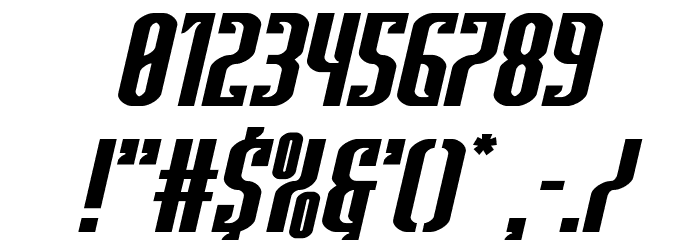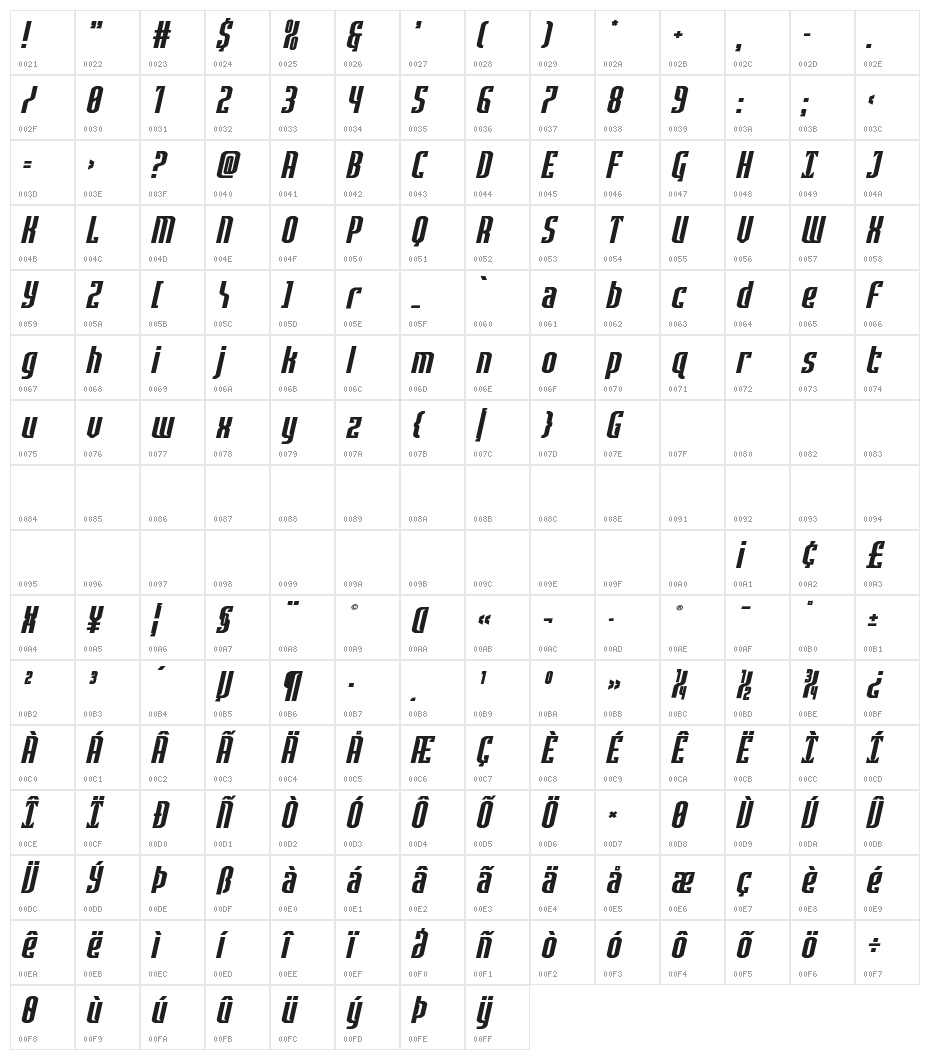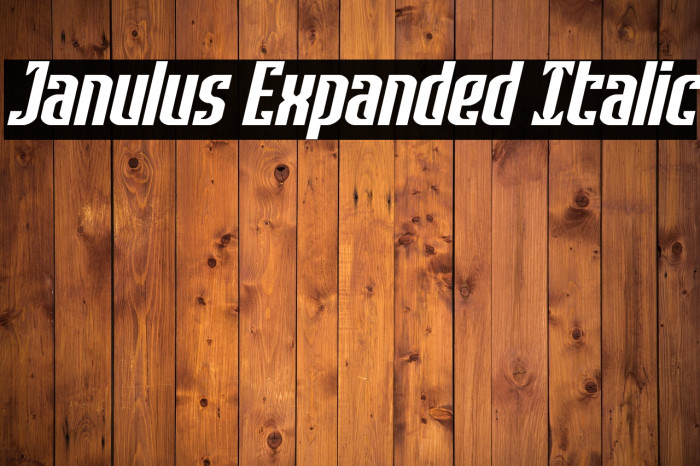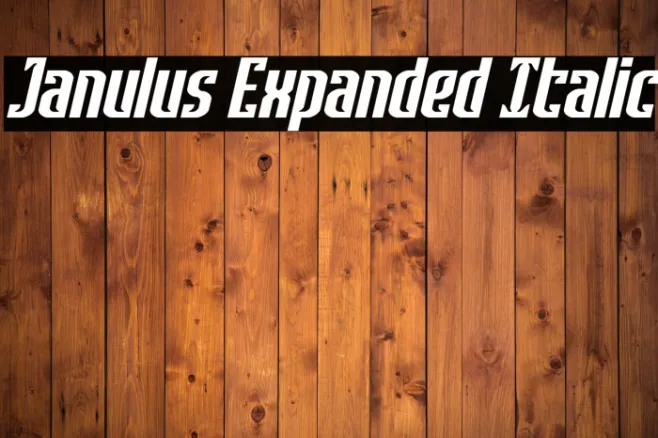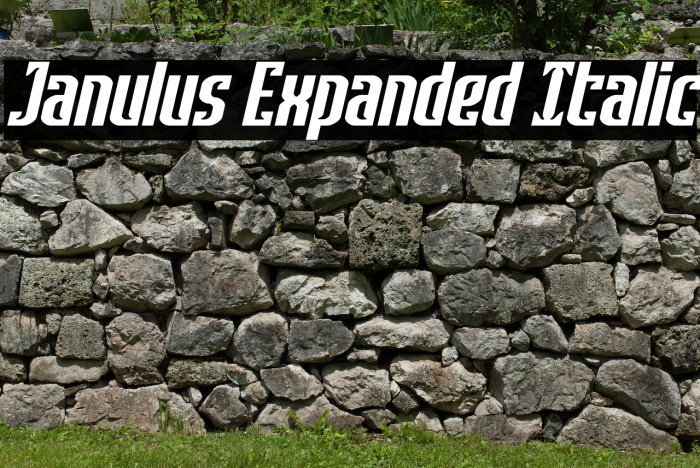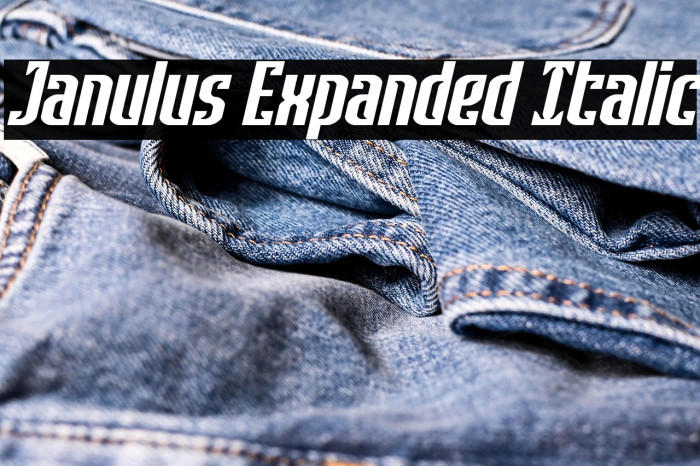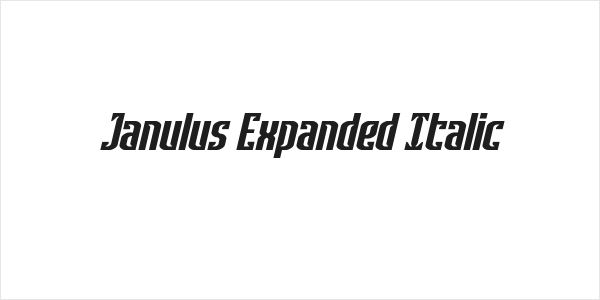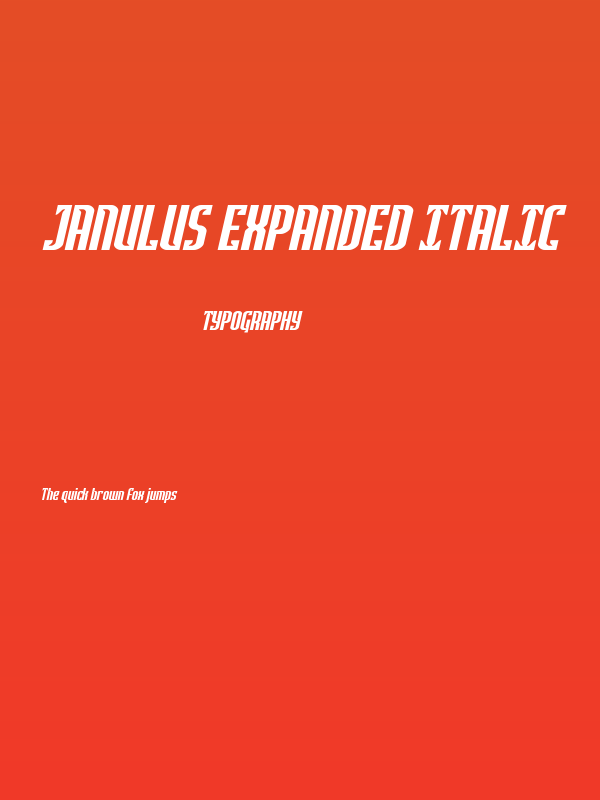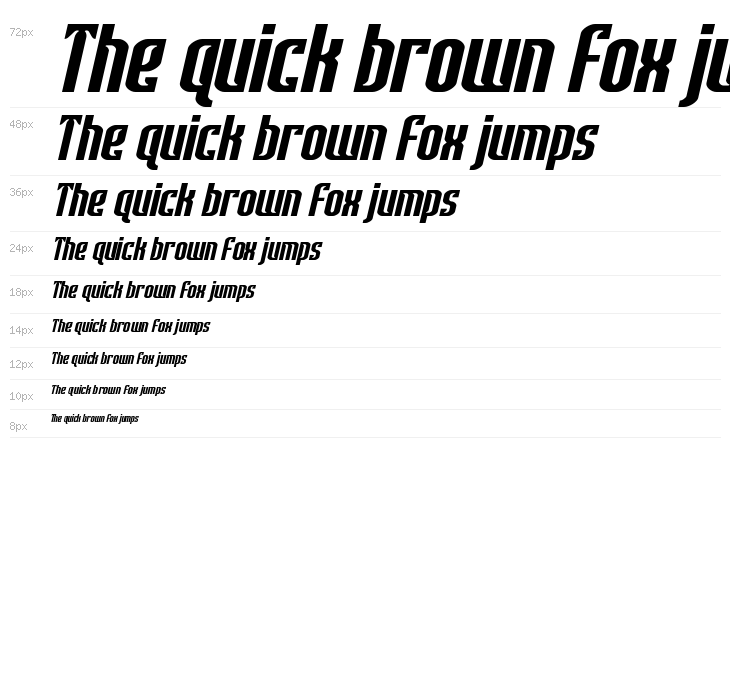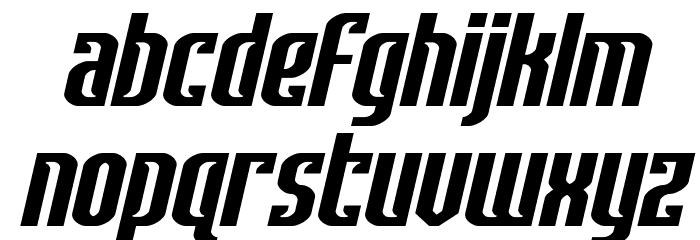
Janulus Expanded Italic Font
Janulus Expanded Italic Description
This font features a bold, italicized style with an expanded width, giving it a strong and dynamic presence. The characters are sharply angled, creating a sense of motion and energy. The uppercase letters are tall and commanding, while the lowercase letters maintain a consistent flow. Numbers are equally bold, ensuring readability and impact. Special characters are designed to match the overall aesthetic, maintaining the same bold and italicized characteristics. The font's design is suitable for making a statement, with its high contrast and distinctive style.